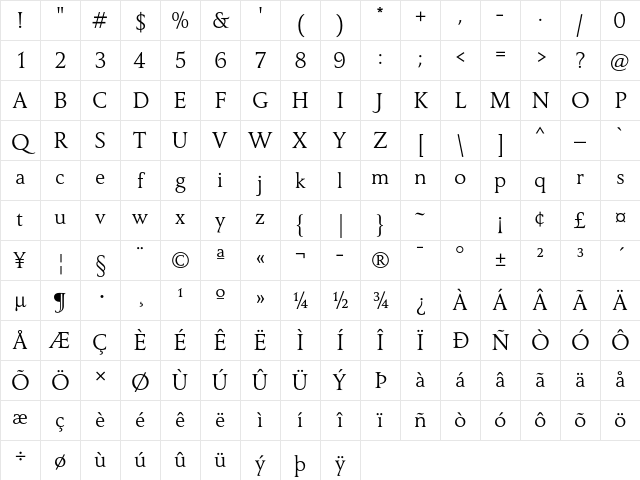
Carre Noir Std Light
Design Context for Carre Noir Std
Carre Noir Std is a composed and adaptable typeface that performs quietly and consistently across a wide range of design contexts. Its slender proportions lend an understated elegance to any composition.